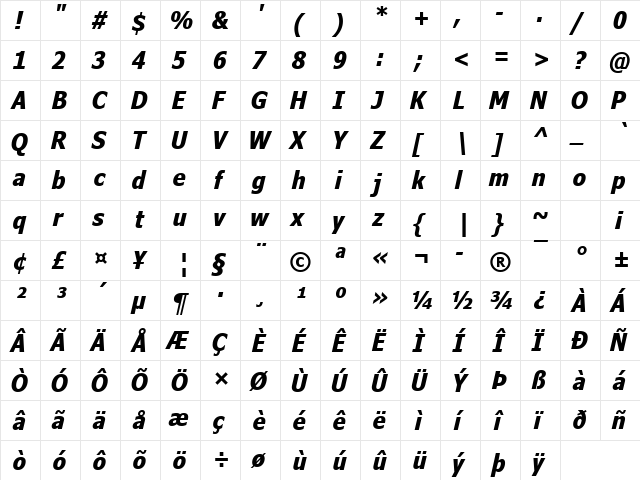
Nina Bold Italic
| Foundry | Microsoft Corp. |
| Designer | Matthew Carter |
Design Context for Nina Typeface
Nina takes a measured approach to typography — its balanced proportions and neutral character make it a reliable workhorse for both digital and print work. Its italic angle brings a sense of urgency and motion to the letterforms. The heavy weight commands attention and anchors typographic hierarchies.